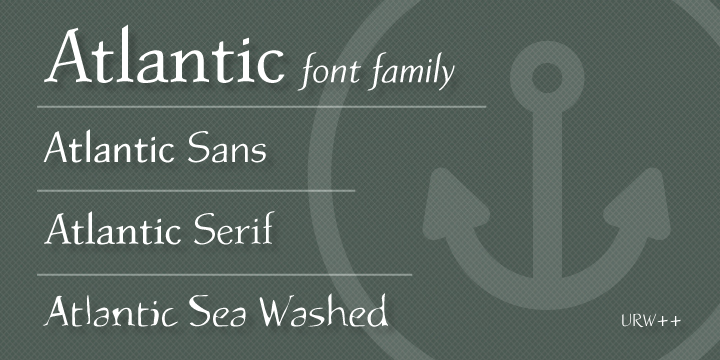
Atlantic Sans Font Free Download – A Clean & Contemporary Typeface for Modern Branding
Looking for a font that balances professionalism with approachability? Atlantic Sans Font Free Download delivers a versatile sans-serif design perfect for corporate identities, web interfaces, editorial layouts, and any project needing clarity with personality. Its friendly yet polished letterforms make it ideal for both business and creative applications.
Why Choose Atlantic Sans Font?
Atlantic Sans Font Free Download offers the perfect blend of form and function with:
Warm, humanist proportions for excellent readability
Multiple weights from Light to Bold for visual hierarchy
Optimized for both digital and print applications
Professional yet friendly aesthetic
Atlantic Sans Font Free Download – Versatile Modern Typography
Enhance your projects with this adaptable typeface for:
Corporate reports & business communications
Website headers & mobile app interfaces
Educational materials & infographics
Branding for service-oriented businesses
Designer Tip: Pair with a geometric sans-serif for dynamic contrast in your layouts!
(Typography Tip: Use the Regular weight at 16px for optimal on-screen readability!)